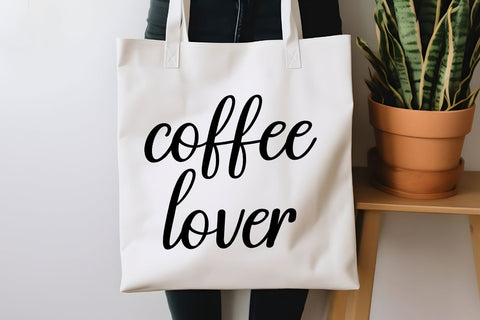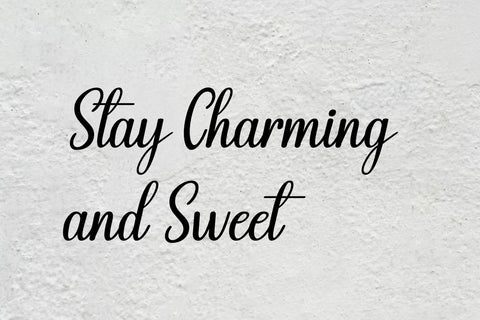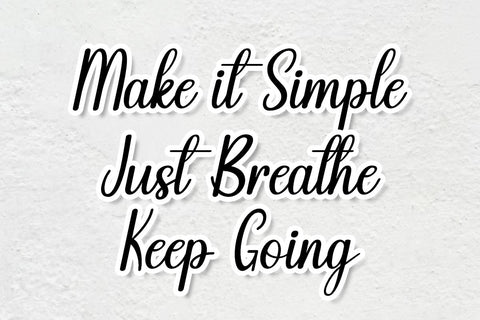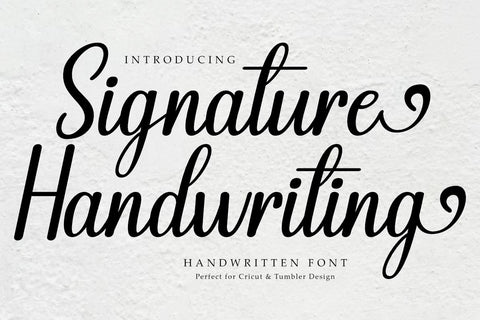
Signature Handwriting - Elegant Handwriting Font
Signature Handwriting is a clean and beautifully handwritten font. It looks great on a variety of design ideas and adds a sweet and friendly touch. Perfect for tumblers, mugs, stickers, teacher designs, Cricut projects, quotes, and DIY crafts. This font is easy to use and suitable for both personal and commercial projects.